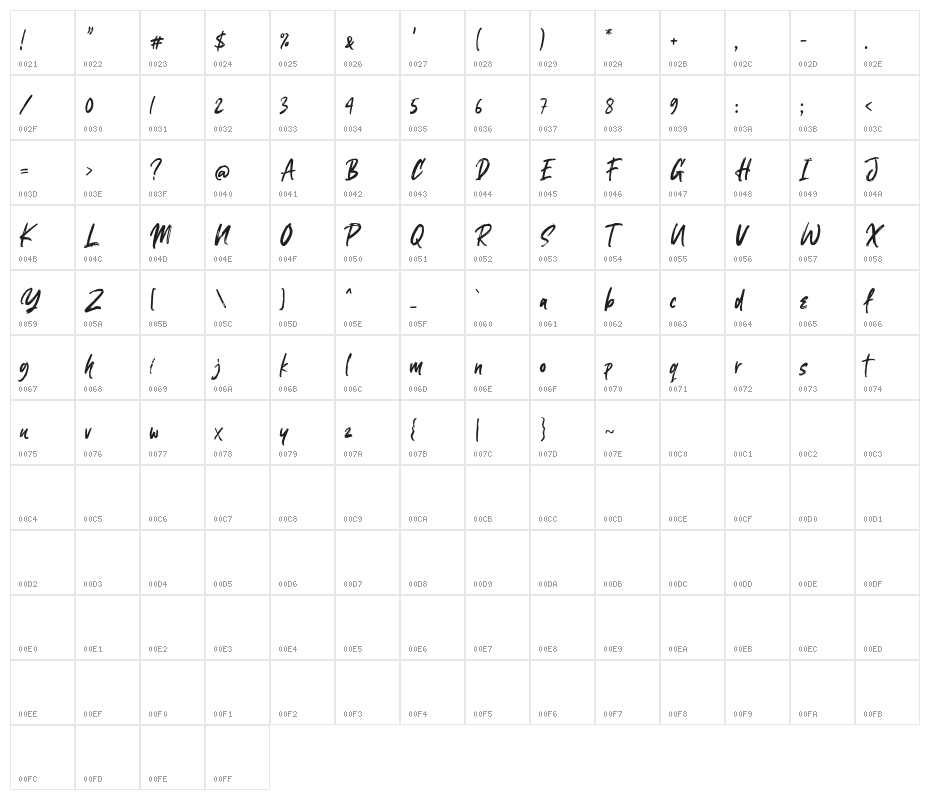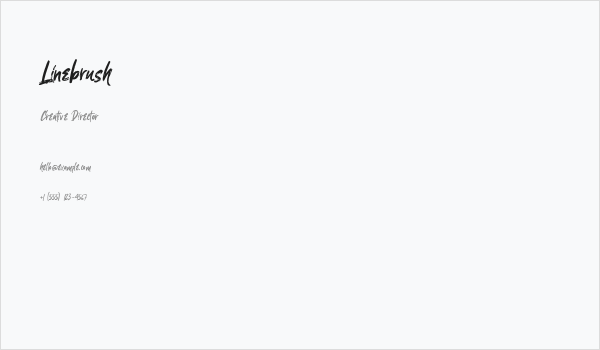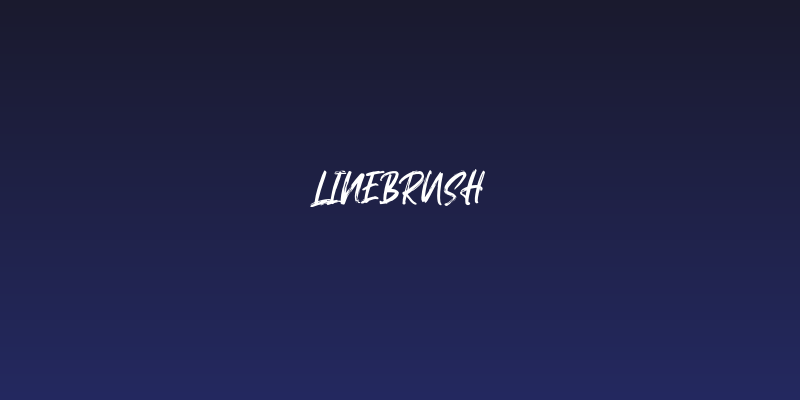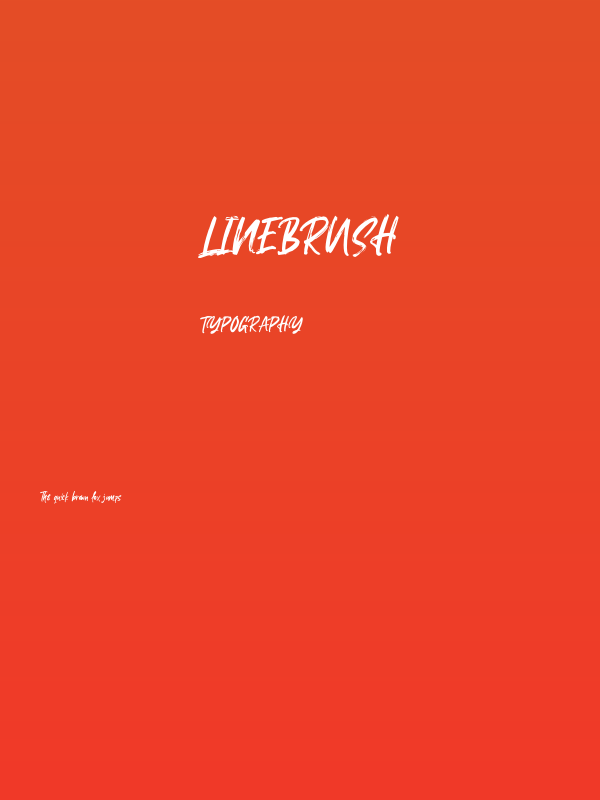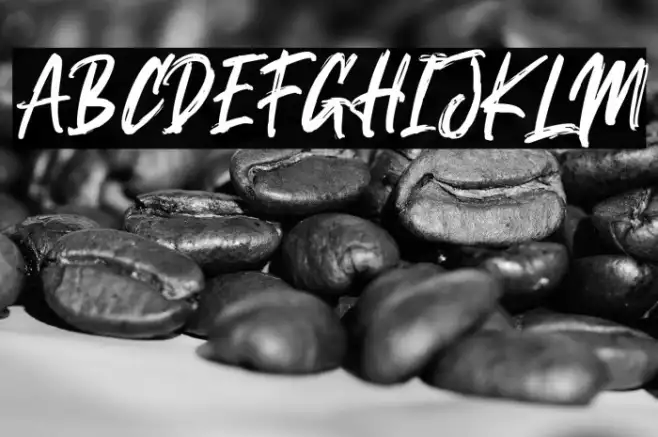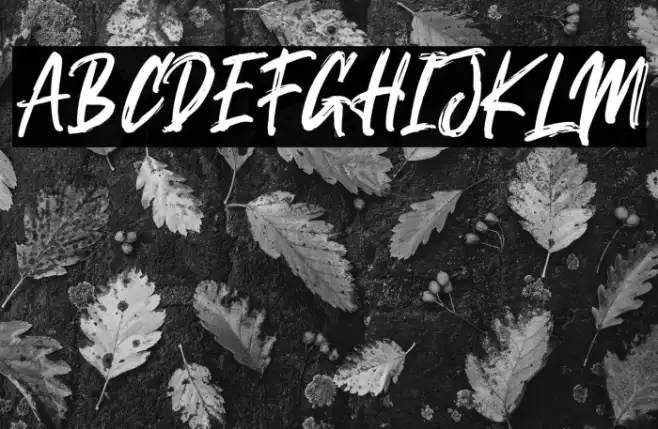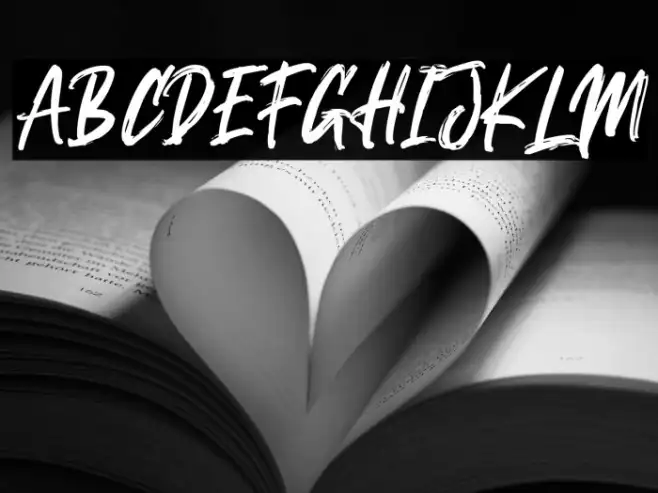
Linebrush Font
Linebrush Description
This font features a dynamic and expressive brush style, characterized by its bold and energetic strokes. The letters exhibit a hand-painted appearance, with varying thickness and a slightly rough texture that adds a sense of movement and spontaneity. The uppercase and lowercase letters maintain a consistent style, while the numerals and special characters complement the overall aesthetic. The font's design is both artistic and modern, making it suitable for projects that require a creative and informal touch.
| Proposed Projects | Ideal for branding, posters, social media graphics, and any project seeking a lively and artistic flair. |